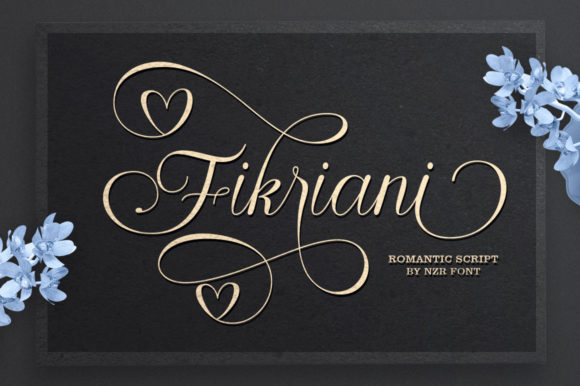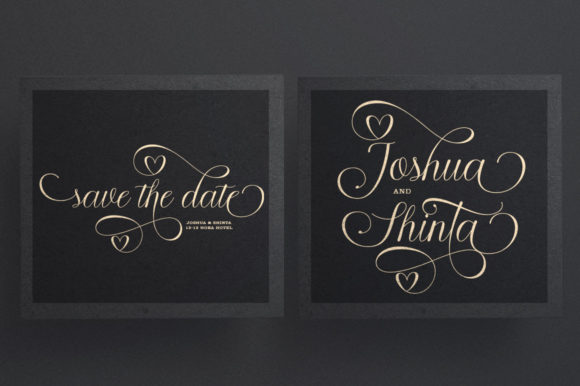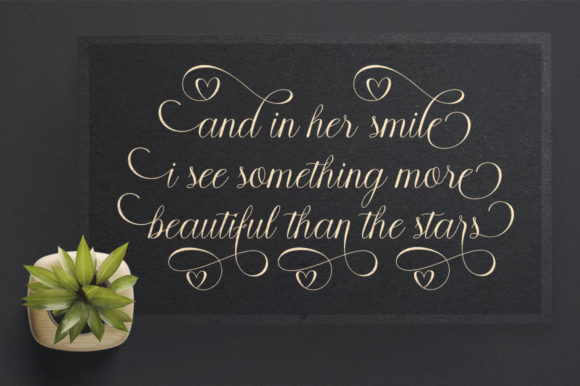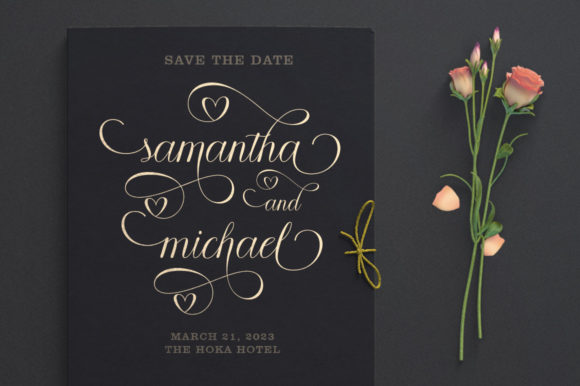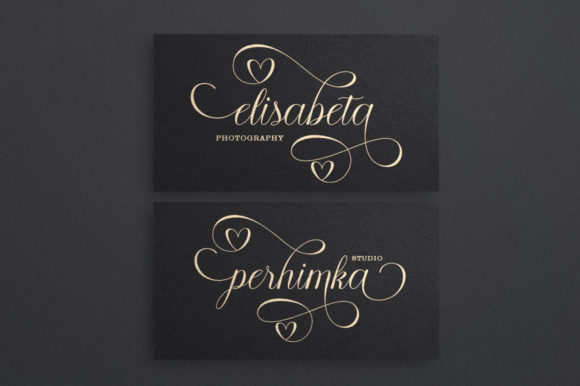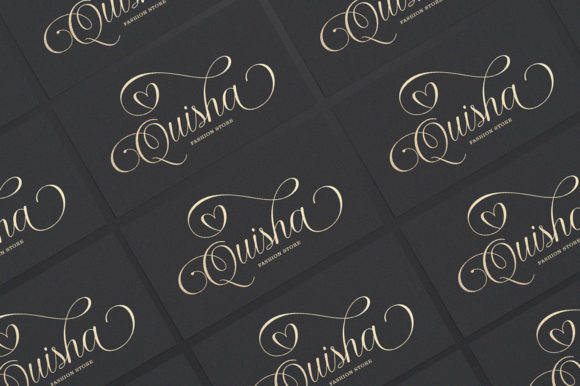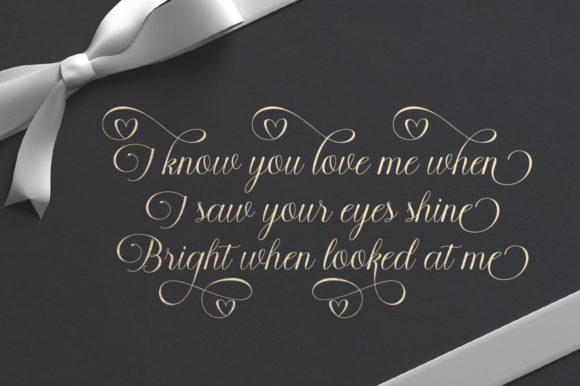
Fikriani Script Font
About Fikriani Script Font
Fikriani is a beautiful and elegant script typeface with unique alternatives. This font is very suitable to be used in invitations, labels, logos, magazines, books, greeting/wedding cards, packaging, fashion, make-up, stationery, novels, labels, and any other project you’re planning on working on! Masterfully designed to become a true favorite, this font has the potential to bring each of your creative ideas to the highest level!